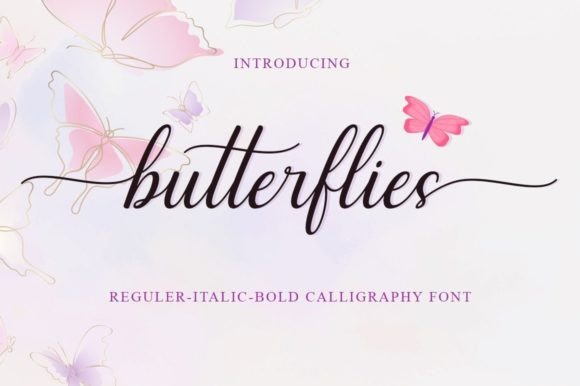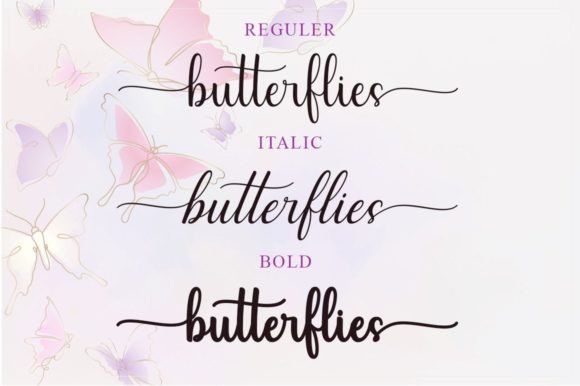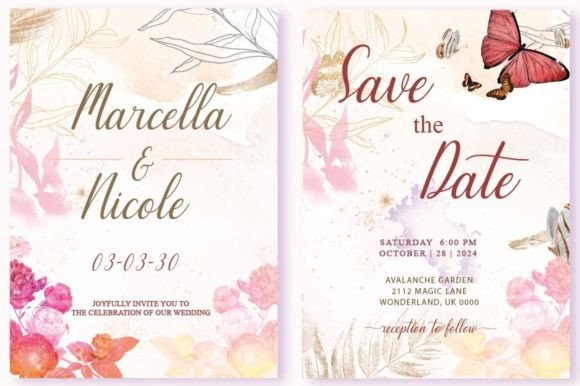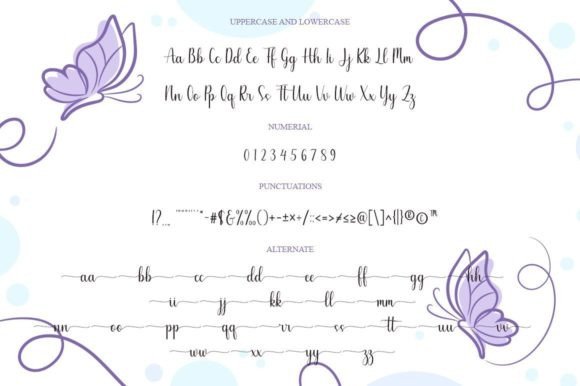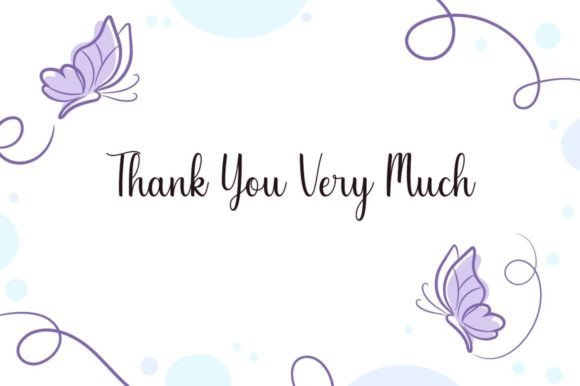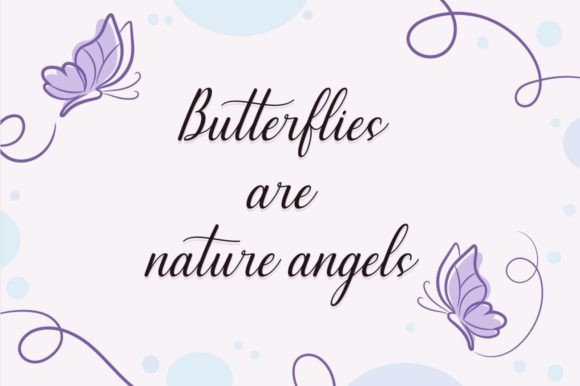
Butterflies Font
About Butterflies Font
Butterflies is not just a font; it’s a delicate, elegant, and flowing script that adds a touch of beauty and sophistication to a diverse range of design projects. With its well-balanced characters, this handwritten font becomes a versatile choice that complements a wide variety of design styles.
The delicacy of Butterflies makes it perfect for creating elegant and refined visuals. From wedding invitations to formal stationery, this font brings a sense of grace and charm to your designs. Its flowing script style enhances the overall aesthetic, making it a perfect match for projects that require a touch of sophistication.
The elegance of Butterflies extends to branding and logos. Whether you’re creating a logo for a luxury brand or a business that values timeless aesthetics, this font elevates the visual identity with its beautiful and well-crafted characters.
The flowing nature of Butterflies makes it suitable for a wide pool of designs, including magazines, books, and various print materials. Its readability and elegant appearance contribute to a seamless integration into editorial layouts, ensuring a harmonious and captivating reading experience.
Butterflies, being PUA encoded, offers a user-friendly experience for designers. This feature allows easy access to all the glyphs and swashes, providing a convenient way to customize and embellish your designs. The versatility of the font is further enhanced by the availability of these decorative elements.
In summary, Butterflies is more than just a font; it’s a design asset that brings delicacy, elegance, and flow to your creative projects. Whether you’re working on invitations, branding, editorial layouts, or any other design application, Butterflies stands out as a beautifully crafted script font that adds a touch of sophistication and charm.